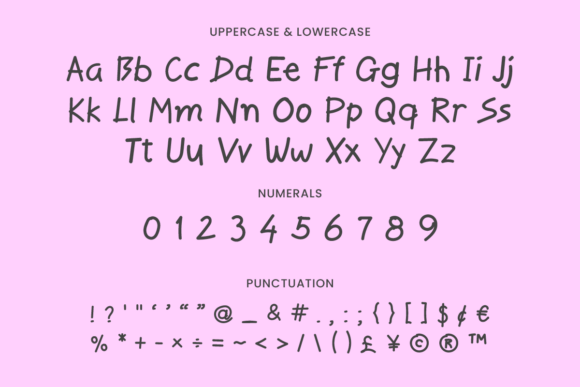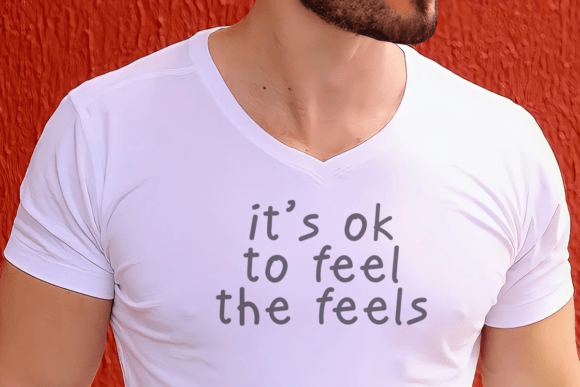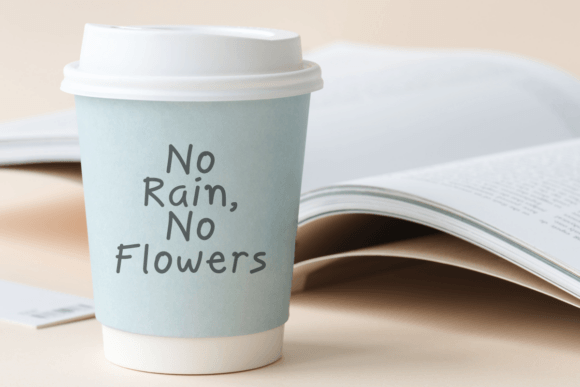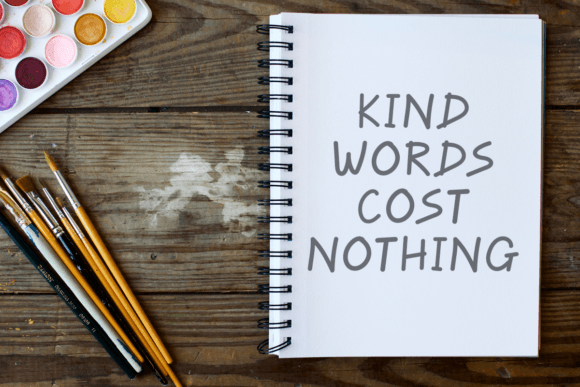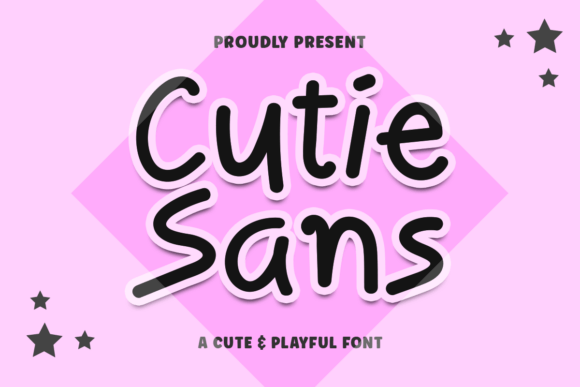
Introducing Cutie Sans: The Charming Handwritten Font for Your Designs
Are you looking for a font that adds a personal touch to your designs? Do you want to create something that feels authentic, creative, and truly special? Look no further than Cutie Sans, a beautiful handwritten font that captures the warmth and character of pen-on-paper.
The Charm of Cutie Sans
Cutie Sans is a charming handwritten font that is perfect for designers and crafters who want to add a touch of personality to their work. With its natural flow, delicate strokes, and playful curves, this typeface is ideal for a wide range of projects, from invitations and logos to social media graphics and heartfelt crafts.
One of the standout features of Cutie Sans is its ability to evoke a sense of warmth and connection. The font’s handwritten style gives it a personal and intimate feel, making it perfect for projects that require a touch of personality and charm. Whether you’re creating a wedding invitation, a logo for a small business, or a social media graphic, Cutie Sans is the perfect choice.
Key Features of Cutie Sans
- Natural Flow: Cutie Sans has a natural flow that makes it feel like it was written by hand. The font’s strokes are smooth and fluid, giving it a organic and authentic feel.
- Delicate Strokes: The font’s delicate strokes add a touch of elegance and sophistication to your designs. Perfect for creating beautiful invitations, logos, and social media graphics.
- Playful Curves: Cutie Sans also features playful curves that add a touch of whimsy and fun to your designs. Perfect for creating playful and eye-catching graphics.
Cutie Sans is a versatile font that is perfect for a wide range of projects. Here are just a few ideas to get you started:
- Invitations: Create beautiful and unique invitations for weddings, birthday parties, and other special occasions.
- Logos: Use Cutie Sans to create a custom logo for your small business or brand. The font’s handwritten style gives it a personal and approachable feel.
- Social Media Graphics: Add a touch of personality to your social media graphics with Cutie Sans. Perfect for creating eye-catching graphics that stand out from the crowd.
- Heartfelt Projects: Use Cutie Sans to create heartfelt projects such as handmade cards, gift tags, and other crafts.
Why Choose Cutie Sans?
So why choose Cutie Sans for your designs? Here are just a few reasons:
- Authenticity: Cutie Sans has an authentic and genuine feel that is hard to find with other fonts. The font’s handwritten style gives it a personal and intimate feel.
- Creativity: Cutie Sans is the perfect choice for designers and crafters who want to add a touch of creativity to their work. The font’s playful curves and delicate strokes make it perfect for creating unique and eye-catching graphics.
In conclusion, Cutie Sans is a charming handwritten font that is perfect for designers and crafters who want to add a personal touch to their work. With its natural flow, delicate strokes, and playful curves, this typeface is ideal for a wide range of projects. Whether you’re creating invitations, logos, social media graphics, or heartfelt crafts, Cutie Sans is the perfect choice. So why wait? Download Cutie Sans today and start adding a touch of personality to your designs!